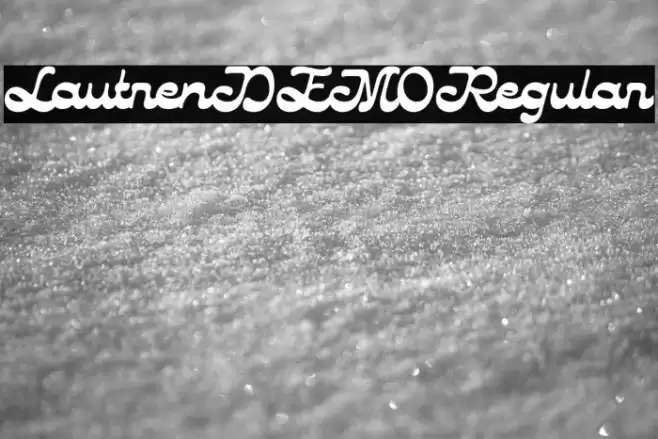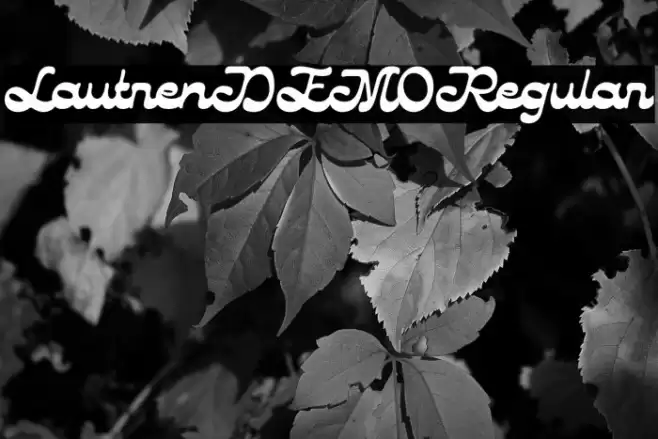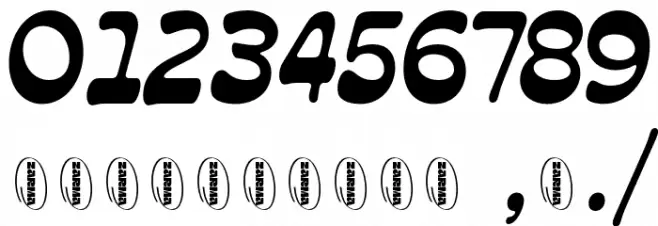
LautrenDEMO-Regular Font
LautrenDEMO-Regular Description
This font features a bold and playful design with a script-like appearance. The letters are connected with smooth, flowing curves, giving it a dynamic and lively feel. The uppercase letters maintain a consistent height, while the lowercase letters have a slightly more varied baseline, adding to the whimsical nature of the font. The numbers are bold and rounded, matching the overall style. Special characters are included, maintaining the same playful aesthetic. The font's thick strokes and rounded edges make it highly legible and suitable for various design applications.
A bold, playful script-like font with smooth, flowing curves and rounded edges from Uncategorized fonts.
- Proposed Projects: Ideal for children's books, playful branding, greeting cards, and creative posters.
- Overall Style: Playful